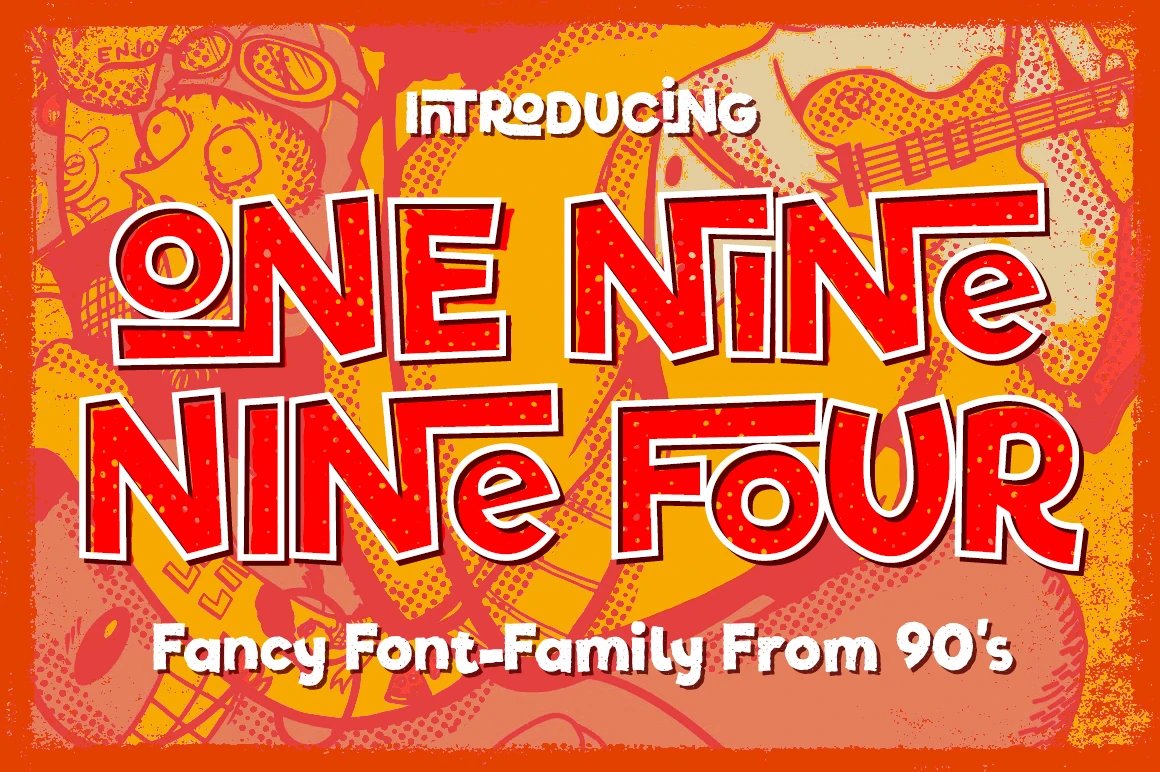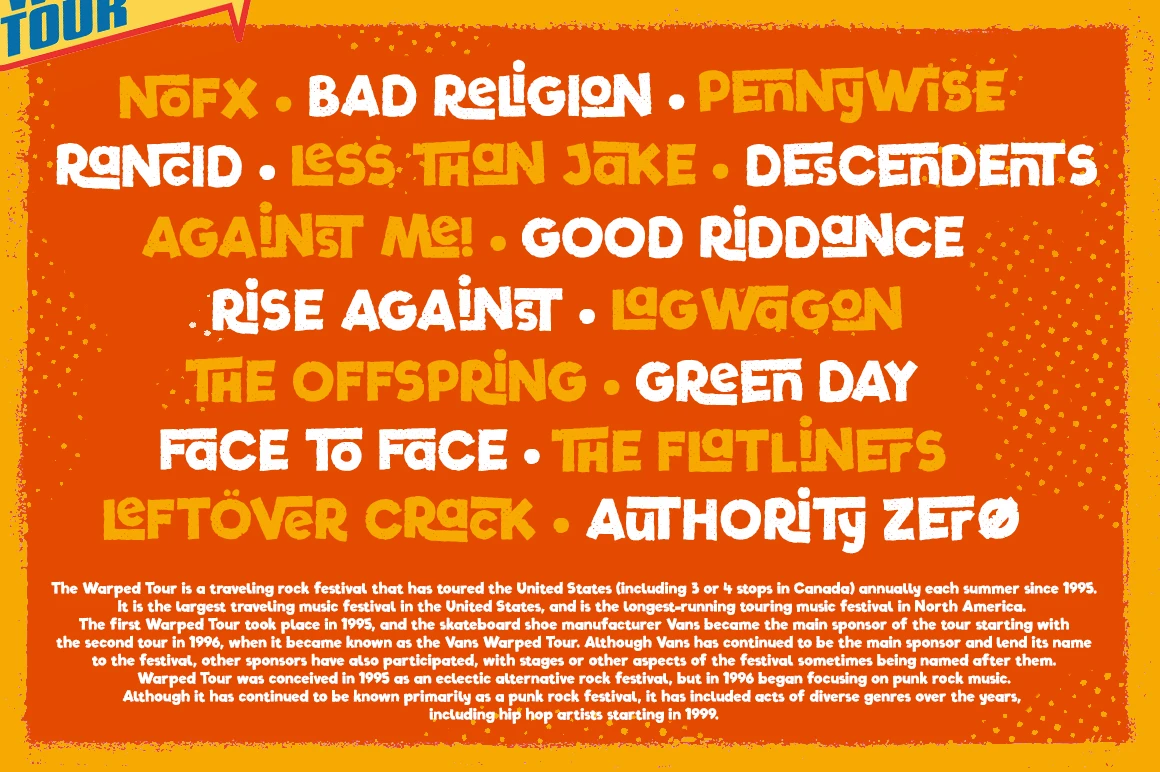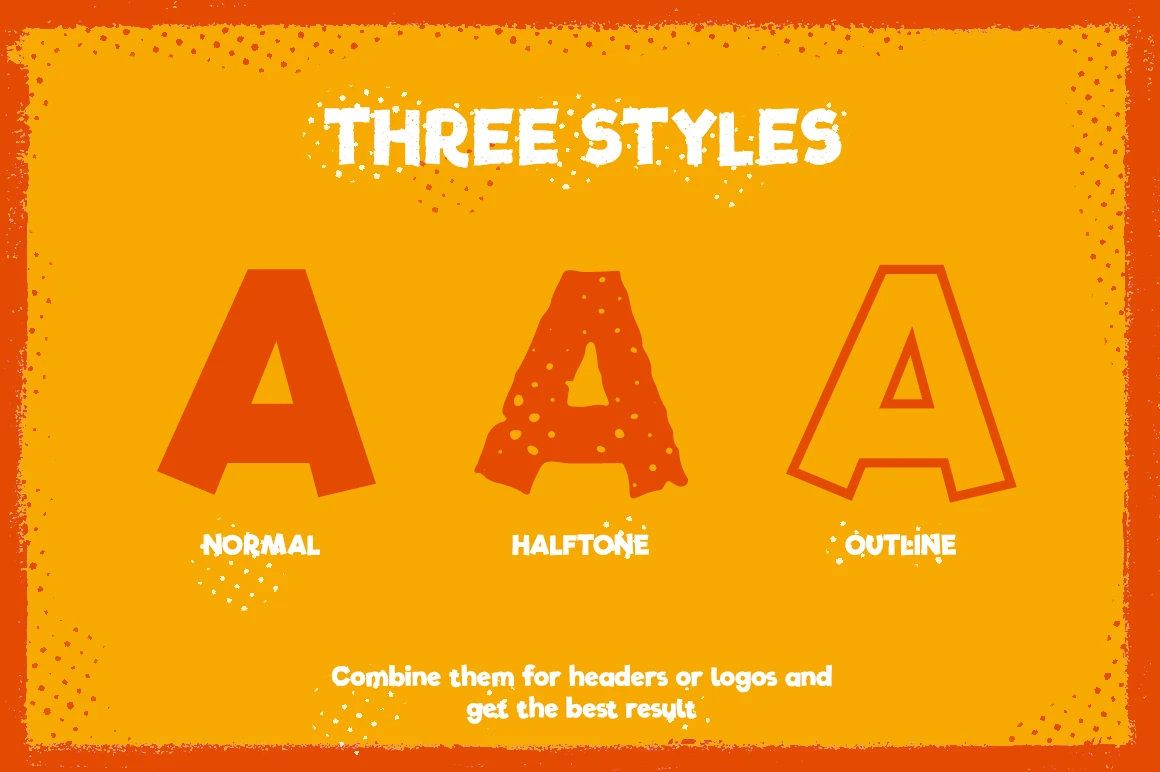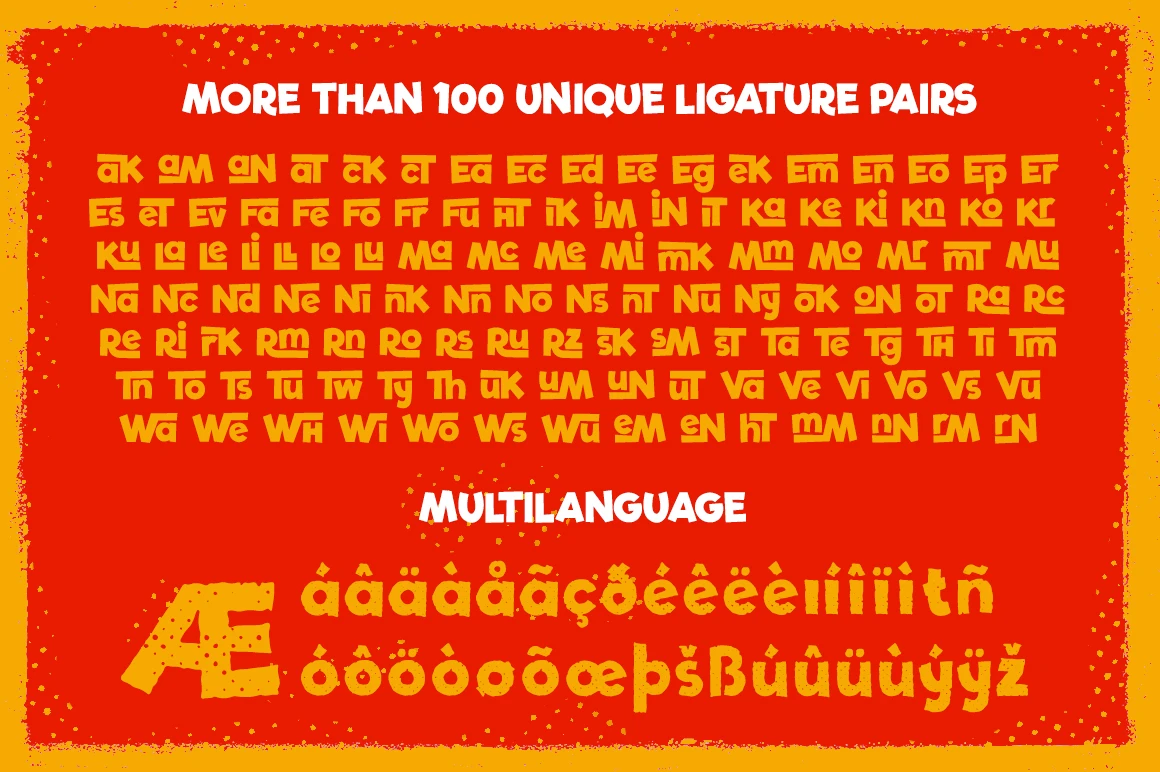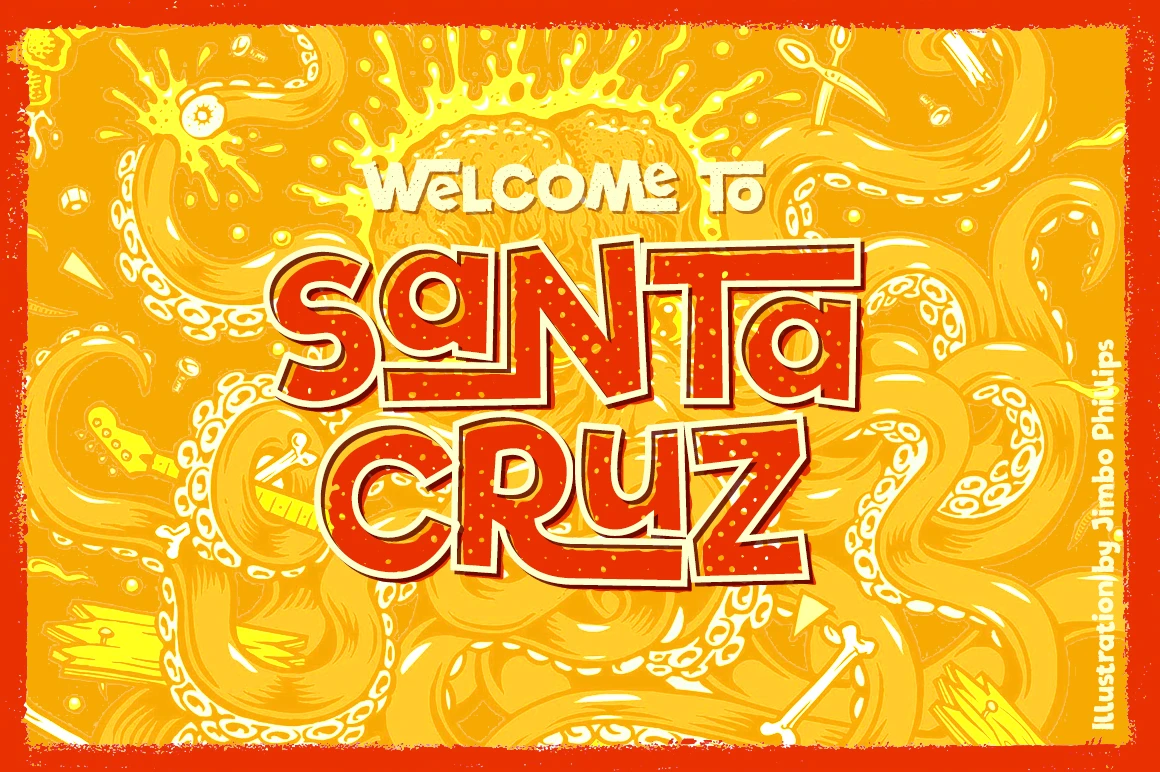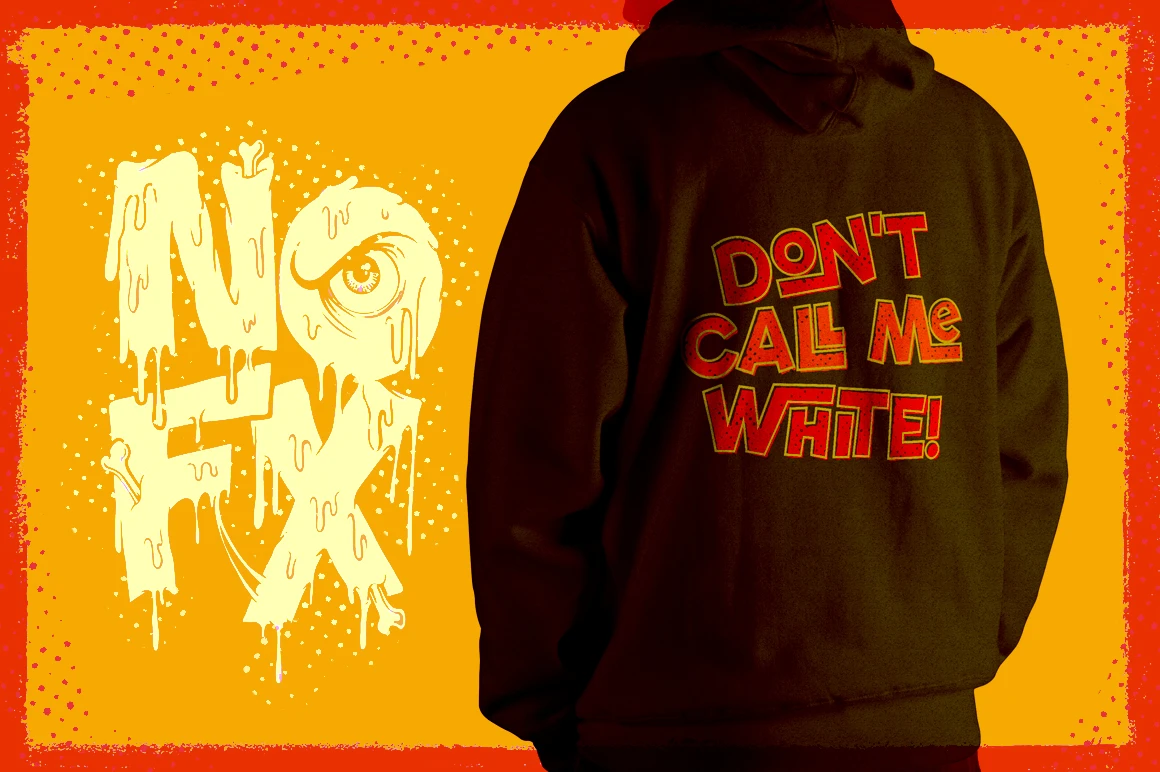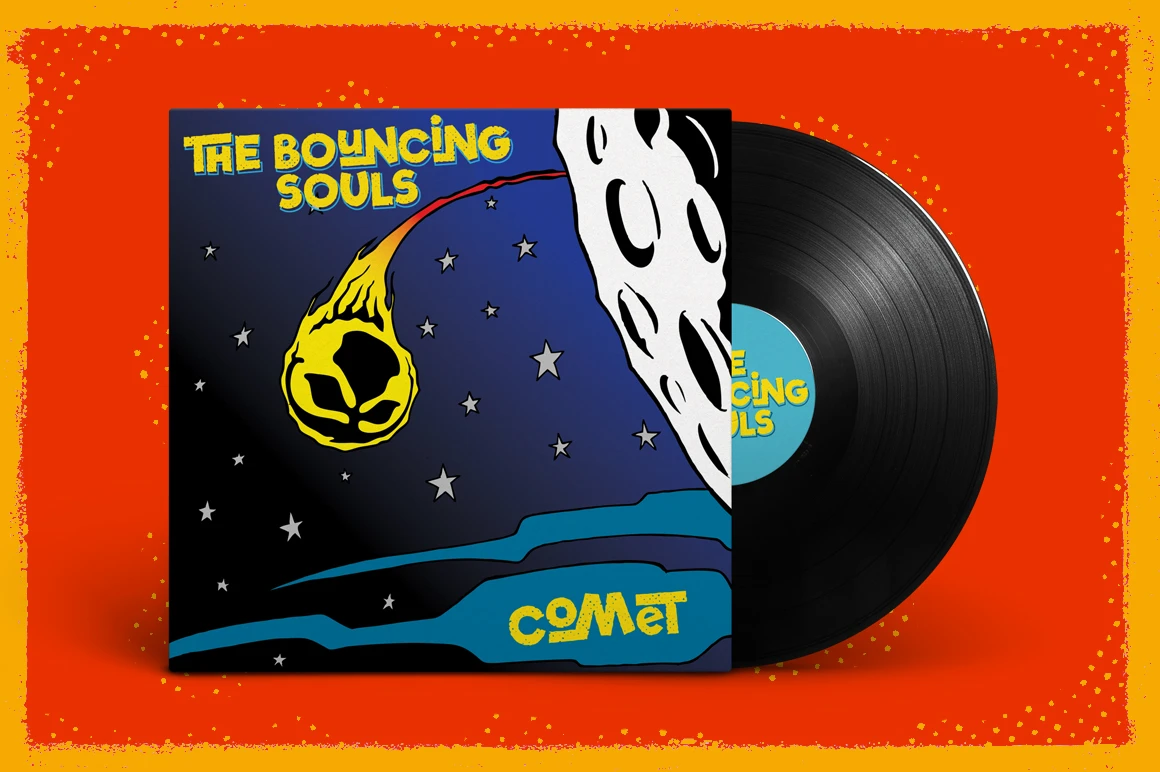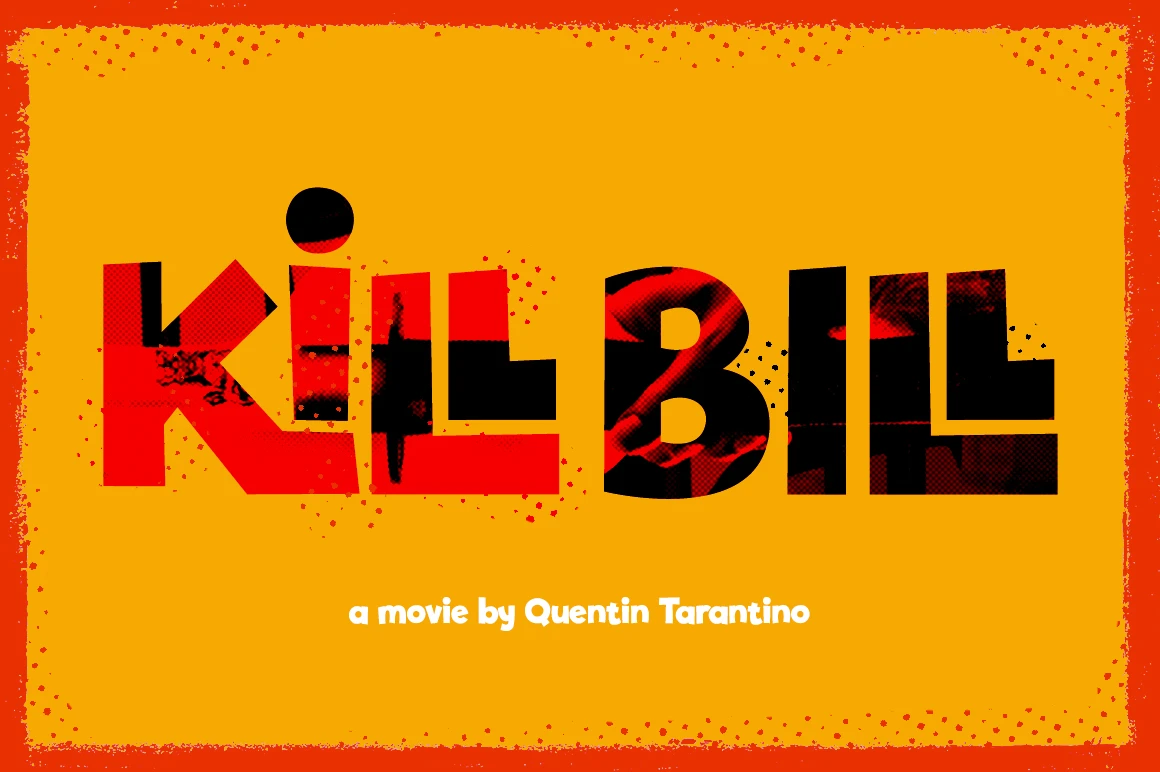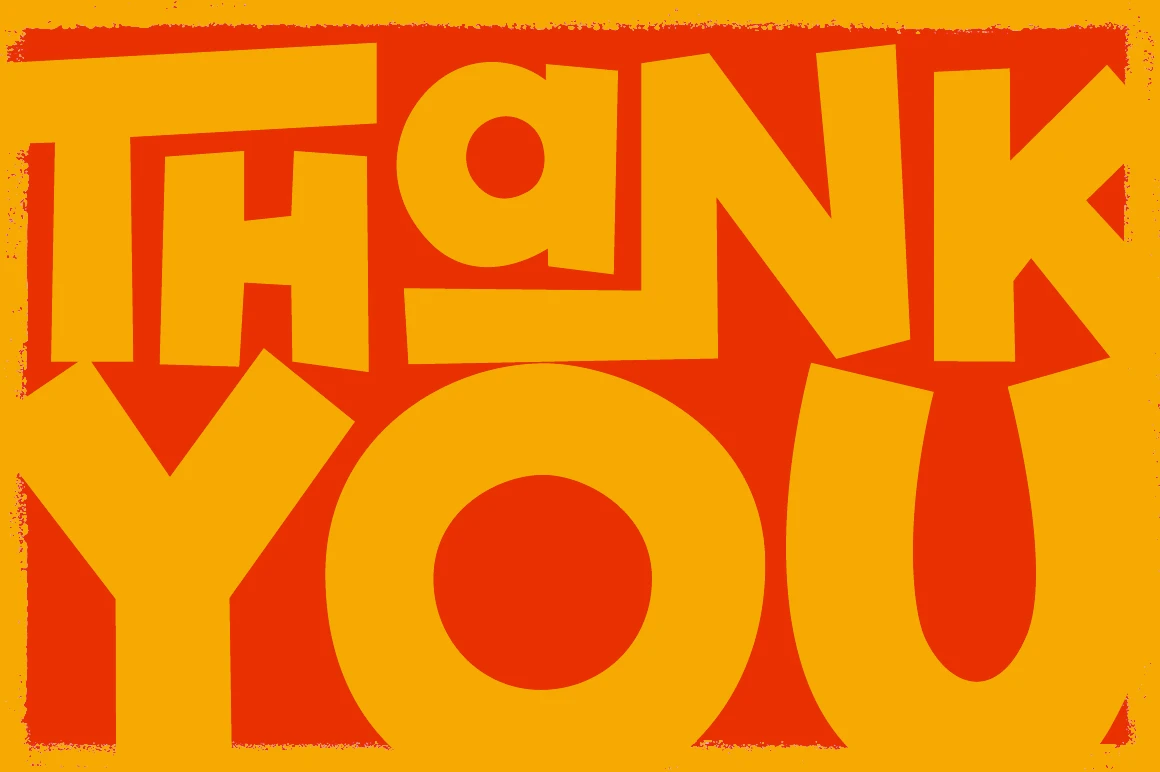
One Nine Nine Four Font Family
One Nine Nine Four is a fun, edgy font family inspired by west coast punk-rock posters and early skateboard graphics. Includes three styles that can be mixed for bold, dynamic results. A halftone version adds a vintage fanzine-style print effect. Features over 100 custom ligature pairs for unique letter combinations, with variations based on uppercase or mixed-case use. Perfect for posters, album covers, t-shirts, zines, and bold graphic design with a rebellious attitude.
• Discretionary Ligatures
Styles included • Halftone • Outline • Regular